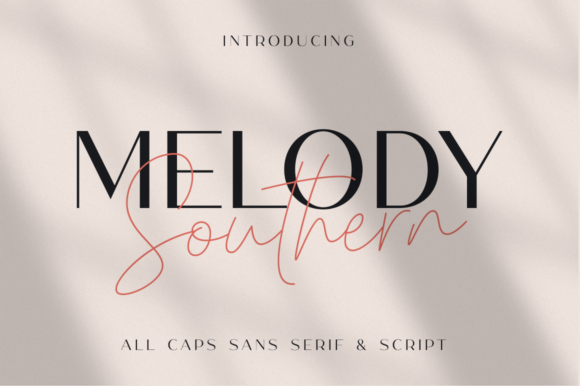
Elevate Editorial Design with the Melody Southern Duo Typeface
In the world of digital publishing and editorial design, typography is never just about legibility; it is about setting a tone before a single word is read. As content creators, we constantly juggle the need for aesthetic appeal with the practical demands of reader engagement. This is where Melody Southern Duo emerges as a transformative tool for publishers, bloggers, and magazine designers. This luxury font duo offers a sophisticated marriage between an elegant all-caps sans serif and a flowing script font, creating a visual language that feels both modern and timeless.
For those of us crafting lifestyle blogs, recipe ebooks, or high-end newsletters, finding a typeface that balances personality with professionalism can be a challenge. Melody Southern solves this by providing two distinct yet harmonious styles in one package. The sans serif component brings a clean, structural foundation, while the script adds a layer of human warmth and elegance. Together, they form a complete branding system that can elevate everything from a simple blog header to a complex wedding guide.
Mastering Visual Hierarchy in Article Layouts
Effective editorial design relies heavily on visual hierarchy. Readers scan content before they commit to reading it deeply, and your typography must guide their eyes effortlessly. With Melody Southern Duo, you gain immediate control over how your audience navigates your publication. The all-caps sans serif is perfect for section headings, navigation bars, and category labels. Its geometric clarity ensures that even at smaller sizes or on mobile screens, the text remains crisp and authoritative.
Conversely, the script font shines when used for emphasis. It is ideal for pull quotes, chapter openers, and introductory lead-ins. Imagine a digital magazine feature where the main headline is set in the bold, uppercase sans serif, while a key takeaway quote floats in the center of the page in the graceful script. This contrast creates a dynamic rhythm on the page, breaking up blocks of text and giving the reader's eye a place to rest. By alternating between these two styles, you create a layout that feels curated and intentional rather than generic.
Practical Applications for Content Creators
The versatility of this premium font extends far beyond standard article bodies. For ebook creators, Melody Southern Duo can define the entire character of a publication. A coaching workbook might use the sans serif for worksheet instructions to ensure clarity, while using the script for motivational sidebars and chapter titles to inspire action. Similarly, a recipe ebook benefits immensely from this pairing; the script can highlight the name of the dish with a handwritten feel, while the sans serif lists ingredients and steps with precision.
- Newsletter Graphics: Use the script for personalized greetings or sign-offs to build a connection with subscribers, while keeping the body copy and subject lines in the clean sans serif for maximum readability.
- Social Media Assets: Create quote graphics for Instagram or Pinterest where the script font overlays a lifestyle image, supported by the sans serif for attribution or context.
- Printable Planners: The duo works beautifully in PDF exports for planners, where the script adds a decorative touch to cover pages and the sans serif ensures functional legibility for daily logs.
- Brand Identity: Establish a cohesive look across your website, logo design, and marketing materials by consistently applying these two typefaces.
When designing for mobile layouts, readability is paramount. The sans serif element of Melody Southern acts as a reliable workhorse for captions and UI elements, ensuring that users on small screens do not struggle to decipher your content. Meanwhile, the script should be reserved for larger display sizes where its intricate details can be appreciated without pixelation. This strategic deployment ensures your editorial design remains accessible across all devices.
Font Pairing and Editorial Consistency
One of the greatest strengths of a font duo is the guarantee of harmony. However, when integrating Melody Southern into a larger design ecosystem, understanding how it pairs with other typefaces is crucial. While the duo is self-sufficient for headlines and accents, long-form body copy often requires a dedicated serif font or a highly neutral sans serif font optimized for reading. Pairing the Melody Southern script with a classic serif like Georgia or Merriweather for body text creates a traditional, book-like feel suitable for literary magazines or in-depth guides.
Alternatively, for a more contemporary, minimalist aesthetic, pair the Melody Southern all-caps with a clean, geometric sans serif for the main article text. This approach works exceptionally well for tech blogs, modern lifestyle brands, and corporate newsletters. The key is to let Melody Southern handle the emotional heavy lifting—the titles, the logos, the decorative elements—while allowing a more subdued font to carry the weight of the narrative. This separation of duties prevents visual fatigue and maintains a professional polish.
Ultimately, the goal of any publisher is to engage the reader and convey a message with clarity and style. Melody Southern Duo provides the tools to achieve this balance. By leveraging the contrast between the structured sans serif and the expressive script, you can craft publications that are not only readable but also memorable. From the cover of an ebook to the final page of a printable guide, this typeface duo supports a visual narrative that resonates with audiences and strengthens your brand presence in a crowded digital landscape.